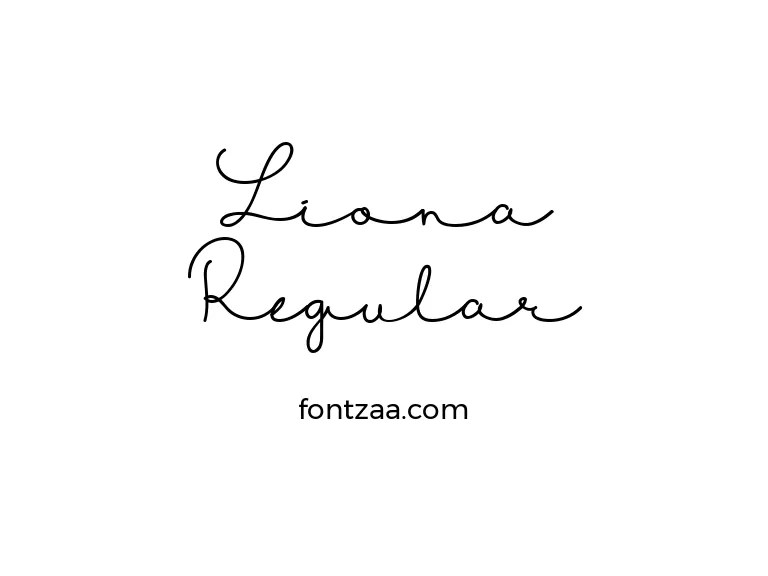
Liona Regular Font
Liona Regular Font offers expressive lettering for designers looking for a elegant visual direction. Liona Regular Font stands out through its individual shapes and can become an important visual element in creative display work. Testing several arrangements before choosing the final version can reveal which characteristics of the typeface work best. The font can work as the primary visual element in a minimal layout or as part of a more detailed composition. Its letter shapes become especially noticeable at larger sizes, where spacing and proportions can be explored more clearly. The font can be considered for projects such as invitations, wedding stationery, signatures, quotes and elegant branding. Keeping secondary typography simple often allows the distinctive qualities of the main font to remain more visible. A clean serif or sans serif companion can handle smaller text while this font remains focused on headlines and key messages. According to the available font information, the typeface is associated with Unknown Publisher. The available licensing label is Free for personal use, but redistribution and commercial permissions should always be confirmed from the original source. A few quick layout variations can help determine where the font creates the strongest visual result.
Liona Regular Font brings a elegant personality to typography and gives designers a flexible starting point for headlines, branding and promotional layouts. Testing several arrangements before choosing the final version can reveal which characteristics of the typeface work best. Using generous space around the lettering can help the details of the typeface remain visible instead of competing with other elements. Different color combinations can make the same font feel subtle, energetic, premium or highly decorative. Creative uses may range from invitations, wedding stationery, signatures, quotes and elegant branding, with different results depending on scale and layout. For layouts containing longer information, pairing it with a simpler supporting typeface can improve readability and hierarchy. Print and digital layouts may require different sizing and spacing, so testing the actual output dimensions is recommended. According to the available font information, the typeface is associated with Unknown Publisher. License details are currently listed as Free for personal use. Users should verify the supplied documentation before using the font in products or paid projects. Experimenting directly in the intended design is usually the best way to judge whether the typeface suits the project.
The visual character of Liona Regular Font makes it an interesting choice for designers working on digital and print projects. Testing several arrangements before choosing the final version can reveal which characteristics of the typeface work best. Its letter shapes become especially noticeable at larger sizes, where spacing and proportions can be explored more clearly. Using generous space around the lettering can help the details of the typeface remain visible instead of competing with other elements. The font can be considered for projects such as invitations, wedding stationery, signatures, quotes and elegant branding. Keeping secondary typography simple often allows the distinctive qualities of the main font to remain more visible. Designers should evaluate the typeface inside the real project because a standalone preview cannot show every possible visual combination. The available source information lists Unknown Publisher as the designer or publisher. Current license information is shown as Free for personal use; checking the original documentation is recommended before client or commercial work. Testing the font with the actual project text can provide a much better impression than viewing isolated sample characters.
Liona Regular Font Family
The Liona Regular Font Family gives designers a flexible display option that can be adapted through changes in size, spacing, alignment and color. Designers exploring a elegant typeface can use Liona Regular Font to add a more recognizable visual voice to font-family exploration. The font can work as the primary visual element in a minimal layout or as part of a more detailed composition. Its letter shapes become especially noticeable at larger sizes, where spacing and proportions can be explored more clearly. Different color combinations can make the same font feel subtle, energetic, premium or highly decorative. Creative uses may range from invitations, wedding stationery, signatures, quotes and elegant branding, with different results depending on scale and layout. Designers should evaluate the typeface inside the real project because a standalone preview cannot show every possible visual combination. Print and digital layouts may require different sizing and spacing, so testing the actual output dimensions is recommended. According to the available font information, the typeface is associated with Unknown Publisher. Current license information is shown as Free for personal use; checking the original documentation is recommended before client or commercial work. Testing the font with the actual project text can provide a much better impression than viewing isolated sample characters.
Liona Regular Font brings a elegant personality to typography and gives designers a flexible starting point for TTF and OTF compatibility with design software. The font can work as the primary visual element in a minimal layout or as part of a more detailed composition. Its letter shapes become especially noticeable at larger sizes, where spacing and proportions can be explored more clearly. Using generous space around the lettering can help the details of the typeface remain visible instead of competing with other elements. The font can be considered for projects such as invitations, wedding stationery, signatures, quotes and elegant branding. Previewing the final layout on both large and small screens helps identify spacing and readability problems early. A clean serif or sans serif companion can handle smaller text while this font remains focused on headlines and key messages. The available source information lists Unknown Publisher as the designer or publisher. Current license information is shown as Free for personal use; checking the original documentation is recommended before client or commercial work. A few quick layout variations can help determine where the font creates the strongest visual result. TTF and OTF are widely supported formats, although exact behavior can vary between applications and operating-system versions.
How to Pair Liona Regular Font With Other Fonts
The visual character of Liona Regular Font makes it an interesting choice for designers working on combining the display font with supporting typefaces. Using generous space around the lettering can help the details of the typeface remain visible instead of competing with other elements. Testing several arrangements before choosing the final version can reveal which characteristics of the typeface work best. Different color combinations can make the same font feel subtle, energetic, premium or highly decorative. Its display-focused appearance makes it worth testing in invitations, wedding stationery, signatures, quotes and elegant branding. Designers should evaluate the typeface inside the real project because a standalone preview cannot show every possible visual combination. For layouts containing longer information, pairing it with a simpler supporting typeface can improve readability and hierarchy. According to the available font information, the typeface is associated with Unknown Publisher. Current license information is shown as Free for personal use; checking the original documentation is recommended before client or commercial work. A few quick layout variations can help determine where the font creates the strongest visual result.
Best Uses for Liona Regular Font
Liona Regular Font brings a elegant personality to typography and gives designers a flexible starting point for practical ways designers can use the typeface. Its letter shapes become especially noticeable at larger sizes, where spacing and proportions can be explored more clearly. The typeface can change considerably depending on tracking, scale, alignment, background and surrounding imagery. The font can work as the primary visual element in a minimal layout or as part of a more detailed composition. Designers may explore it across invitations, wedding stationery, signatures, quotes and elegant branding, depending on the tone and requirements of the project. Keeping secondary typography simple often allows the distinctive qualities of the main font to remain more visible. Designers should evaluate the typeface inside the real project because a standalone preview cannot show every possible visual combination. The available source information lists Unknown Publisher as the designer or publisher. Current license information is shown as Free for personal use; checking the original documentation is recommended before client or commercial work. The most effective treatment will vary by project, so designers should compare several versions before finalizing the artwork.
Branding Ideas With Liona Regular Font
With its distinctive letterforms, Liona Regular Font can introduce a elegant character into logos, wordmarks and visual identity systems. Testing several arrangements before choosing the final version can reveal which characteristics of the typeface work best. Its letter shapes become especially noticeable at larger sizes, where spacing and proportions can be explored more clearly. The font can work as the primary visual element in a minimal layout or as part of a more detailed composition. The font can be considered for projects such as invitations, wedding stationery, signatures, quotes and elegant branding. A clean serif or sans serif companion can handle smaller text while this font remains focused on headlines and key messages. Previewing the final layout on both large and small screens helps identify spacing and readability problems early. The available source information lists Unknown Publisher as the designer or publisher. Current license information is shown as Free for personal use; checking the original documentation is recommended before client or commercial work. A few quick layout variations can help determine where the font creates the strongest visual result.
Creative Projects With Liona Regular Font
Designers exploring a elegant typeface can use Liona Regular Font to add a more recognizable visual voice to different creative applications for the font. The font can work as the primary visual element in a minimal layout or as part of a more detailed composition. Testing several arrangements before choosing the final version can reveal which characteristics of the typeface work best. Its letter shapes become especially noticeable at larger sizes, where spacing and proportions can be explored more clearly. Designers may explore it across invitations, wedding stationery, signatures, quotes and elegant branding, depending on the tone and requirements of the project. Designers should evaluate the typeface inside the real project because a standalone preview cannot show every possible visual combination. Keeping secondary typography simple often allows the distinctive qualities of the main font to remain more visible. The available source information lists Unknown Publisher as the designer or publisher. License details are currently listed as Free for personal use. Users should verify the supplied documentation before using the font in products or paid projects. A few quick layout variations can help determine where the font creates the strongest visual result.